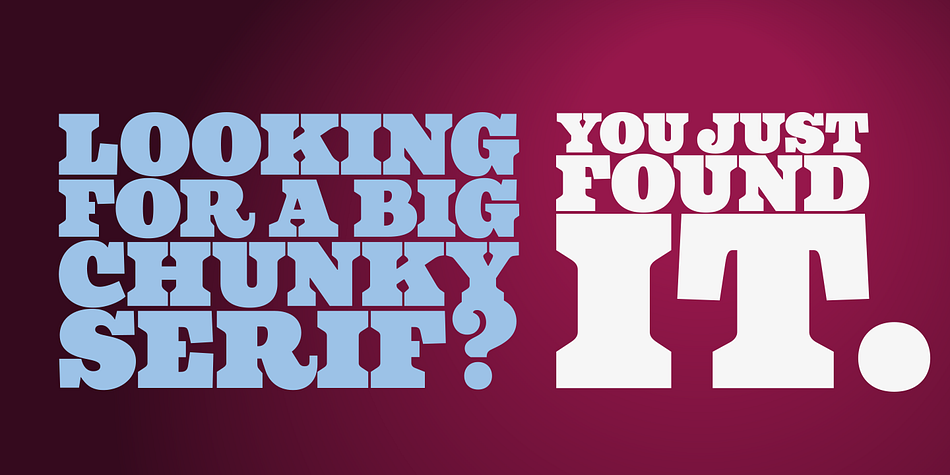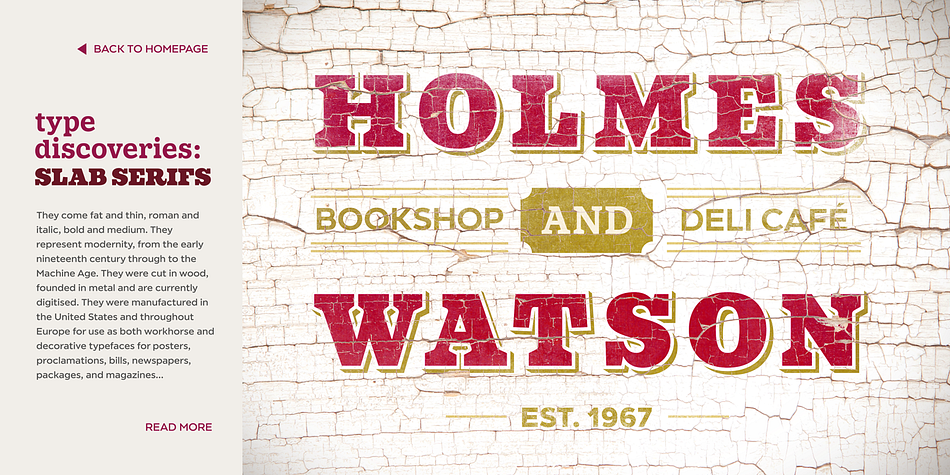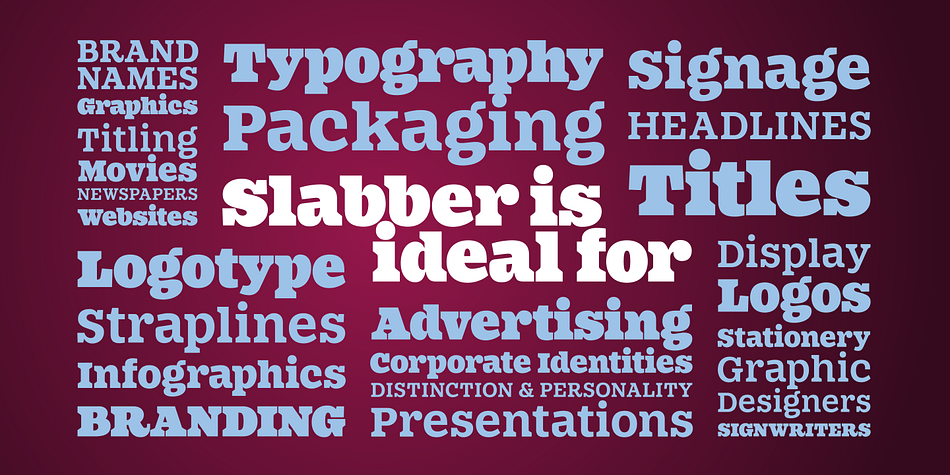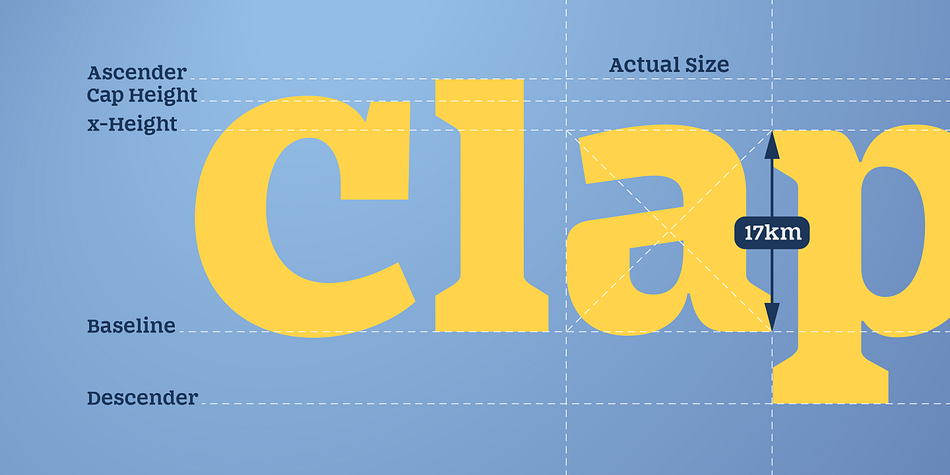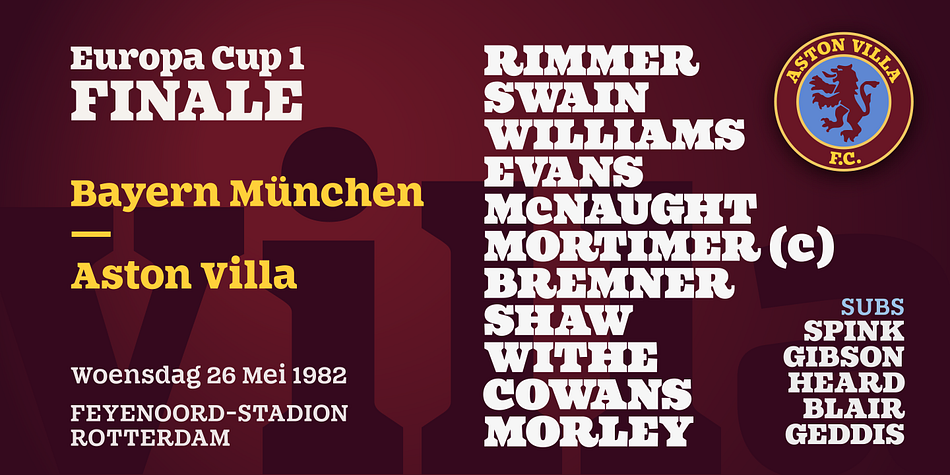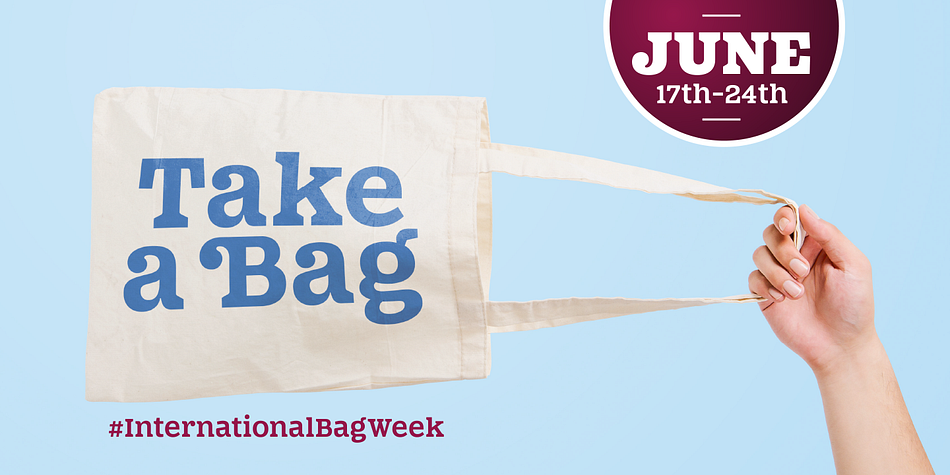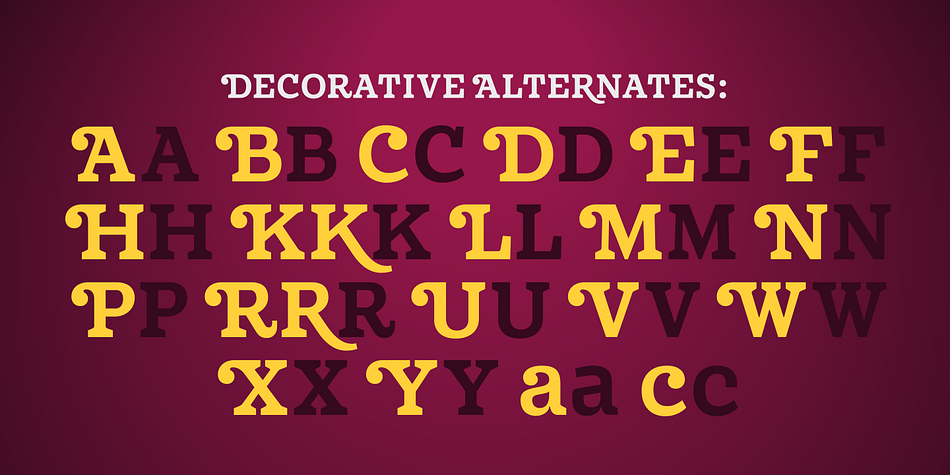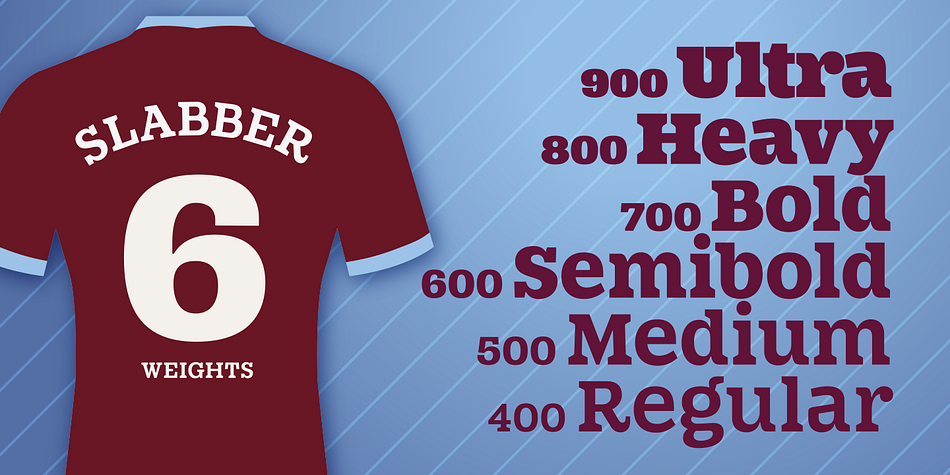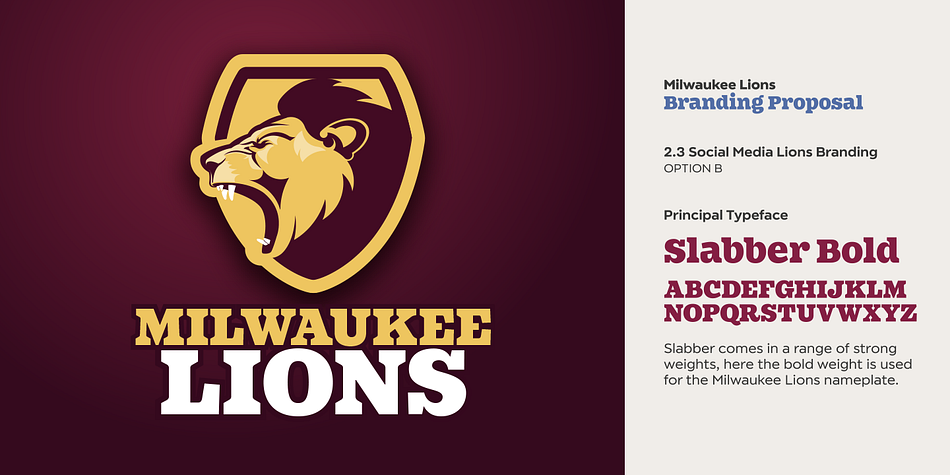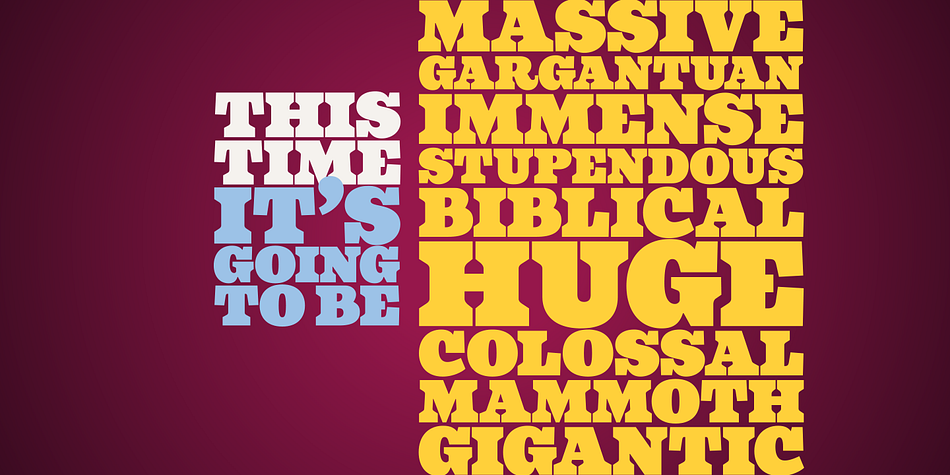
Designed by Paulo Goode, Slabber is a display slab and slab serif font family. This typeface has six styles and was published by Paulo Goode.
Slabber is a big ol’ chunky serif that’s specifically designed for display purposes – headlines, logotype, branding, titles, packaging, signage, etc. Its characteristics include heavy bracketed serifs with a strong 19th century wood type influence, while a very large x-height combined with a small cap height creates an awkward tension that delivers a strong, stylish, contemporary typeface. Slabber is enhanced by 22 alternates that will allow you to add flourishes to your typography. All Latin European languages are covered in this 6-weight typeface.